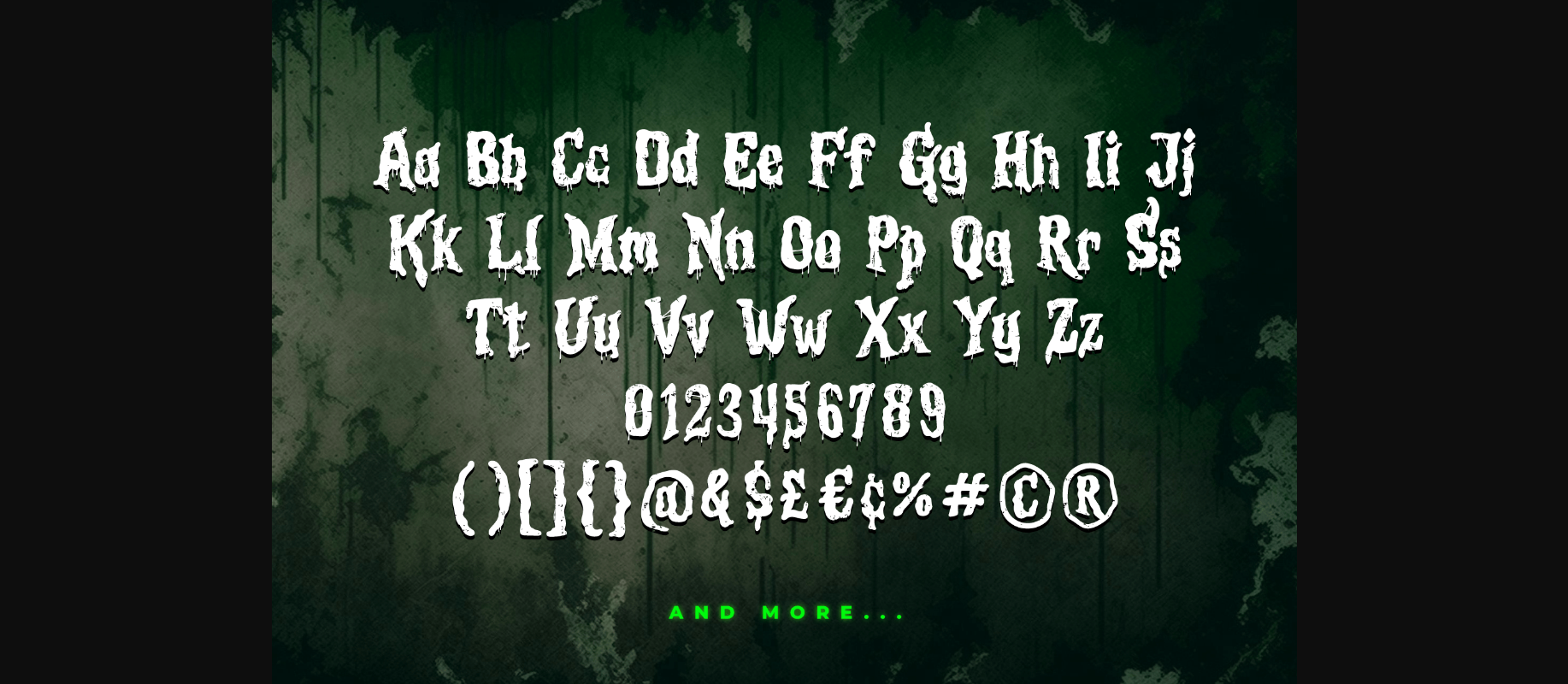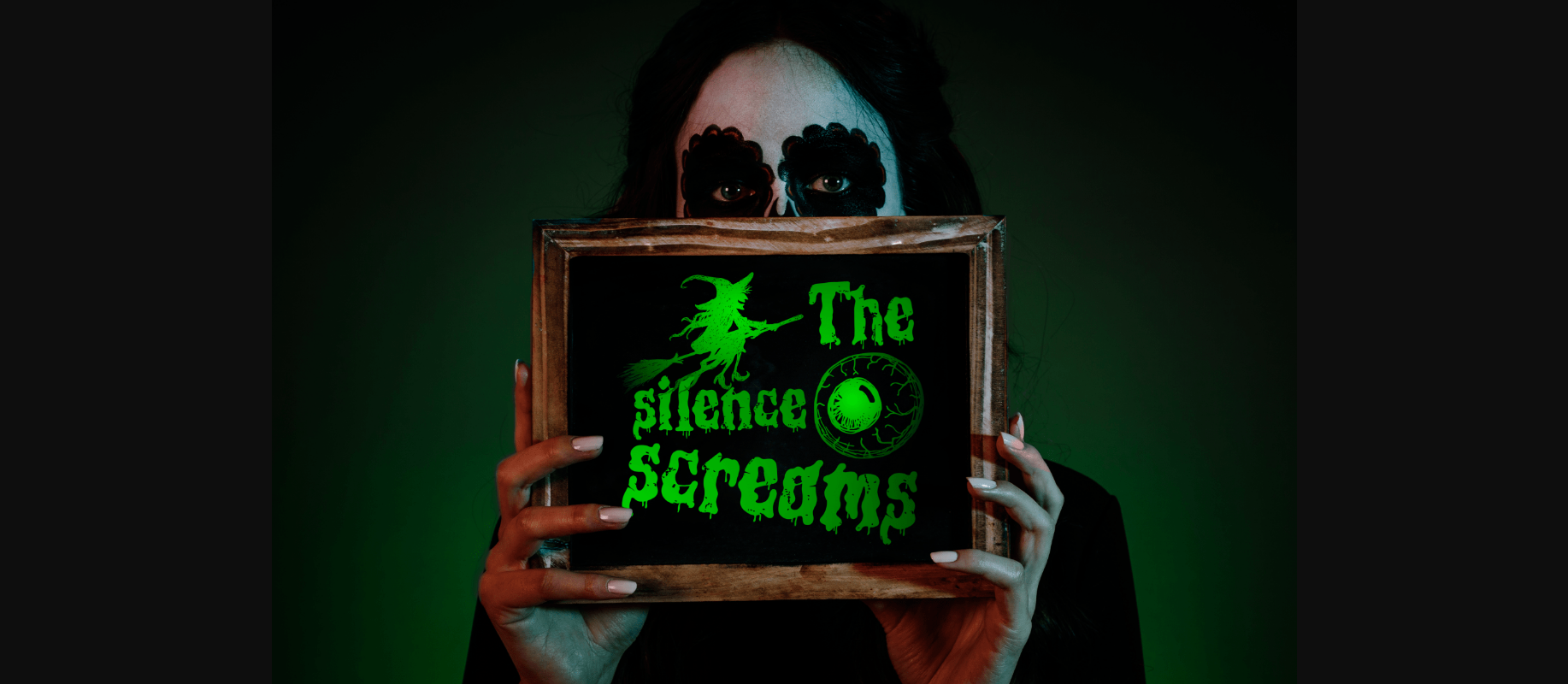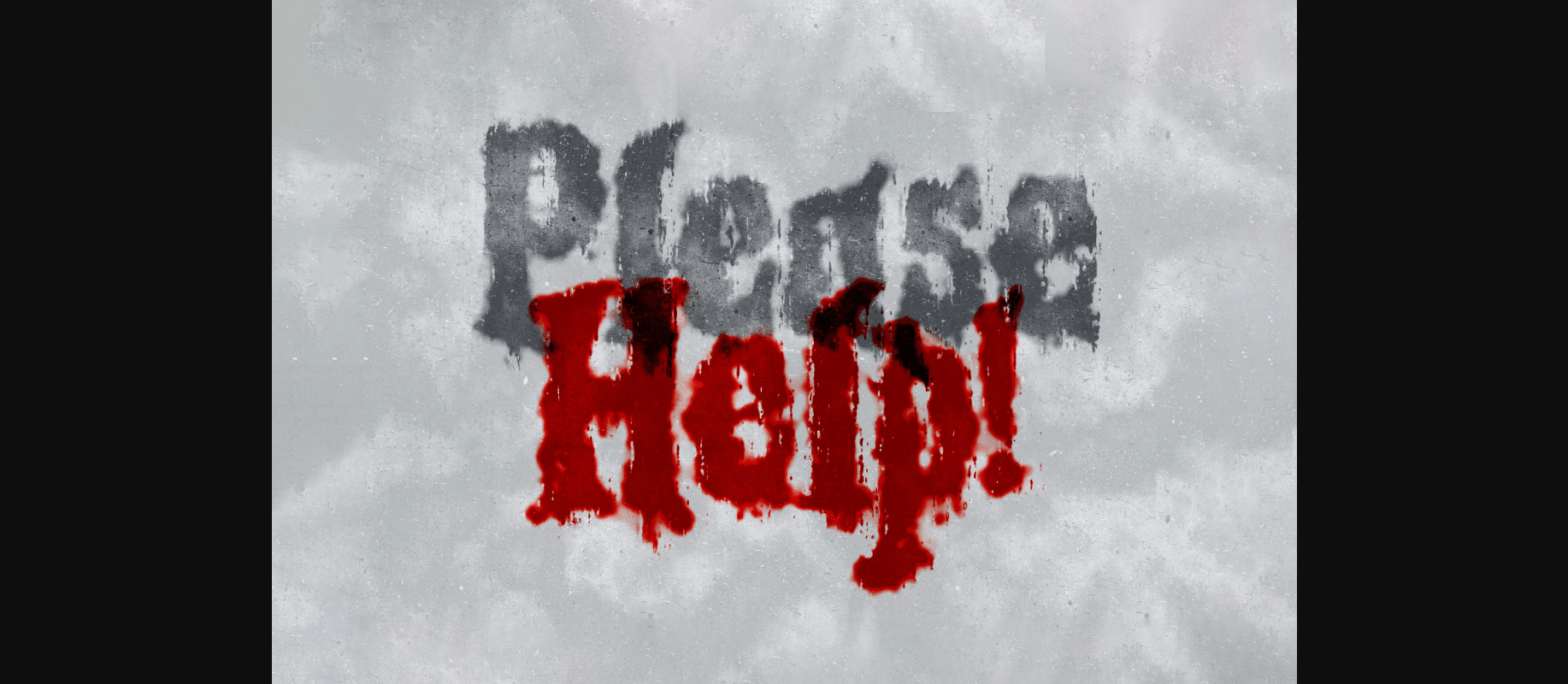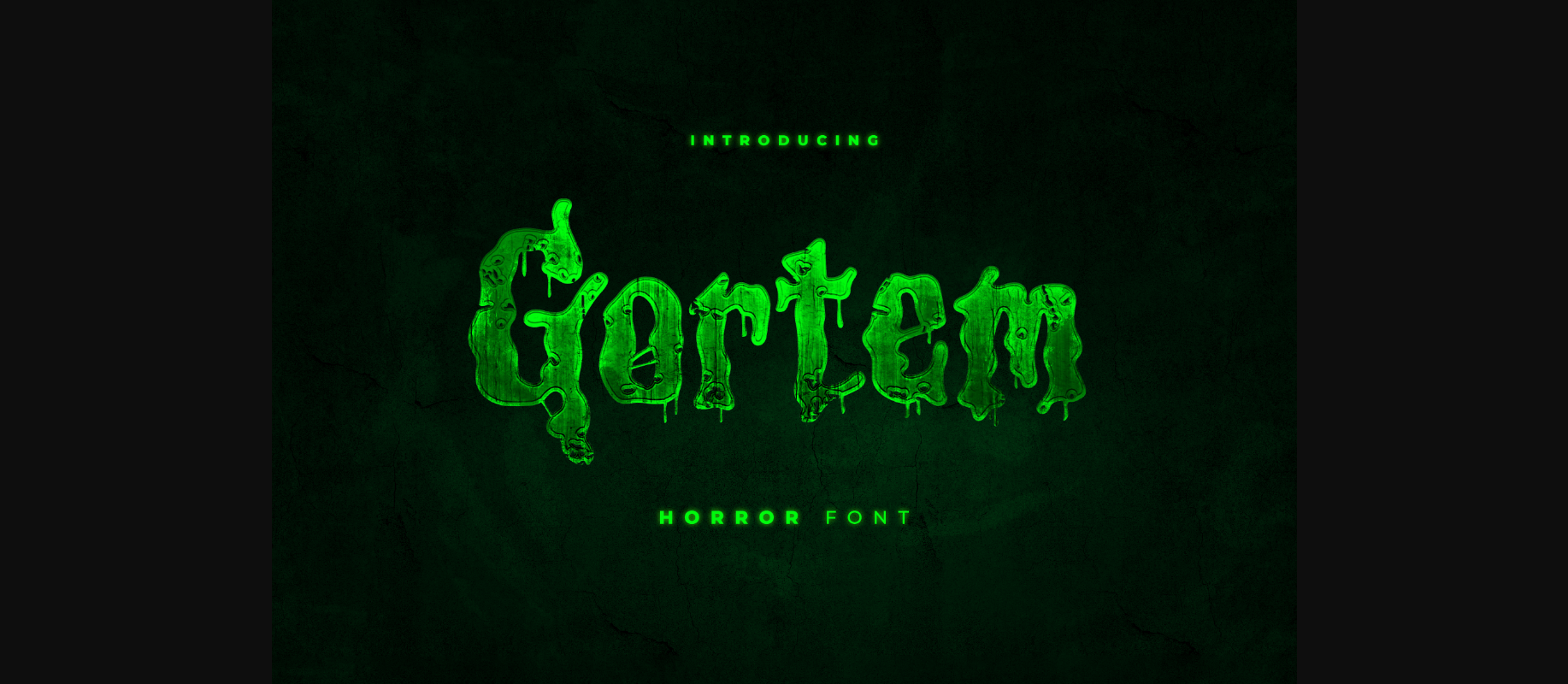
Gortem Font
About Gortem Font
Introducing “Gortem,” a chilling handwritten font that sends shivers down the spine. With its eerie, dripping letters, Gortem adds a haunting touch to your text, perfect for horror-themed designs. This font captures the essence of fear with every stroke, making it an ideal choice for spooky invitations, mysterious signage, and bone-chilling Halloween projects. Unleash the terror with Gortem, where each letter drips with the macabre, setting the stage for a truly frightful experience.